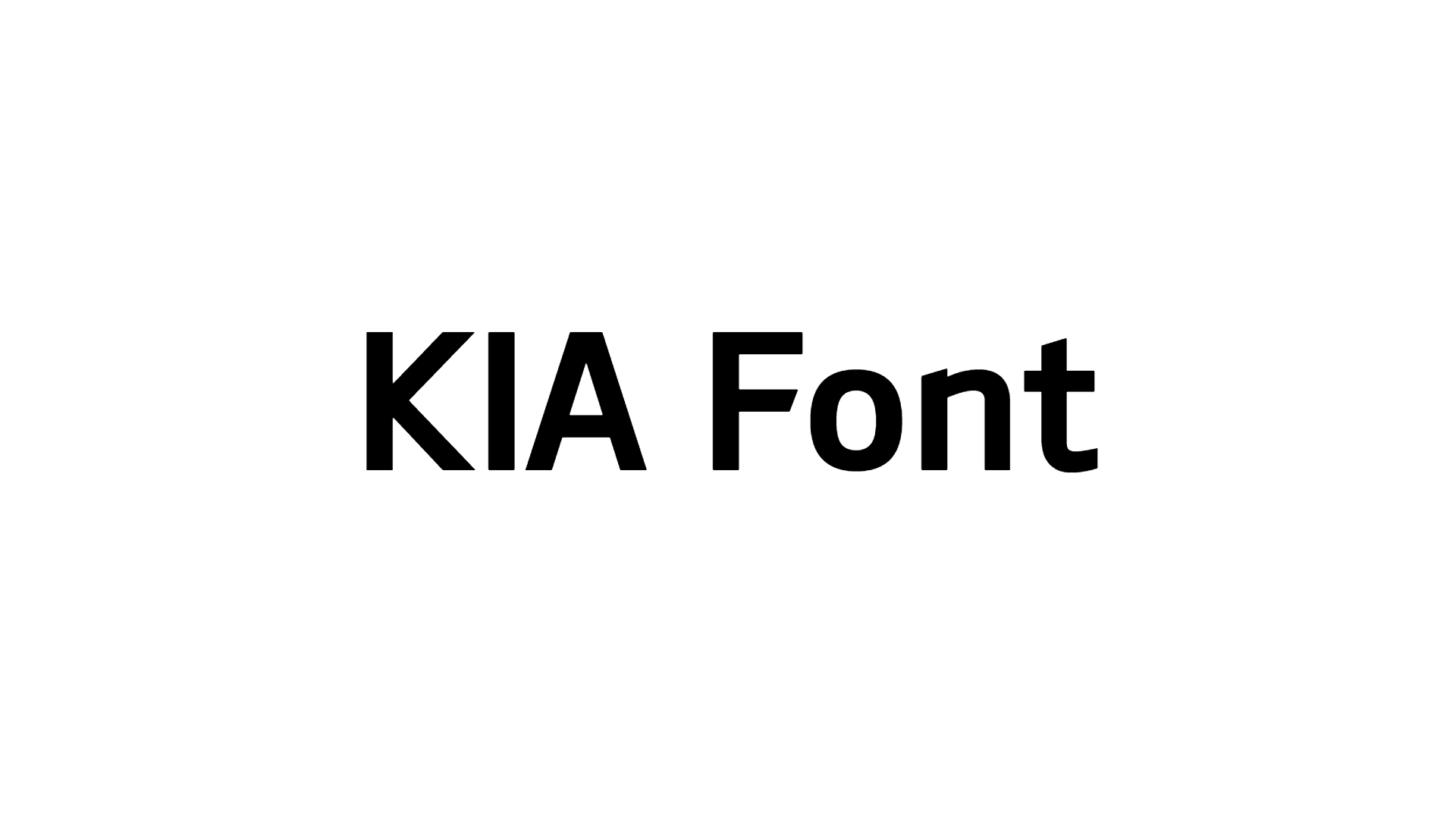
KIA Font
KIA is a sans serif font created by Dooyul Kwak & Sungwoo Choi & Miun Song & Youngkwon Noh & Sanga Kim and released through Sandoll Communications Inc. Simple, open letter shapes keep it easy to read at almost any size, from app buttons to big headlines. The free download includes three styles, and you can try every one of them with your own text in the preview above.
- Designer: Dooyul Kwak & Sungwoo Choi & Miun Song & Youngkwon Noh & Sanga Kim
- Publisher: Sandoll Communications Inc
- Font styles: 3 (Light, Medium and Bold)
- Glyphs: 22,013 in the Light style
You get every letter from A to Z in both cases and all the numbers from 0 to 9, which means KIA can handle full sentences, dates and prices. Common punctuation such as &, !, ? and @ is included as well. It also has the accented letters you need for Spanish, French, German, Portuguese and Italian. On top of that, it includes Greek and Cyrillic characters.
Designers usually reach for fonts like KIA when they're making websites, app screens and clean logos. It works for headings and body text alike. If the download has several weights, use a heavier one for titles and a lighter one for paragraphs. Because the family has more than one style, you can mix them in a single design for headings, subheadings and highlights.
Yes. KIA includes the accented letters needed for Spanish, French, German, Portuguese and Italian, so it works for more than just English.